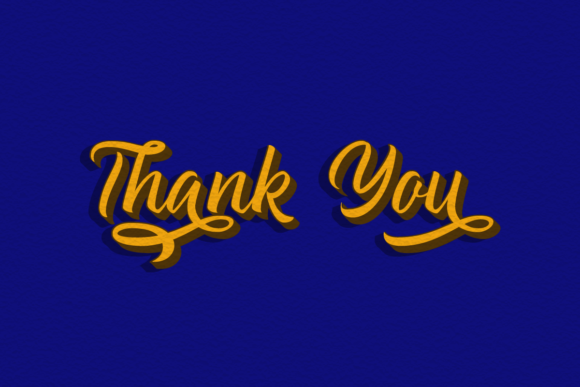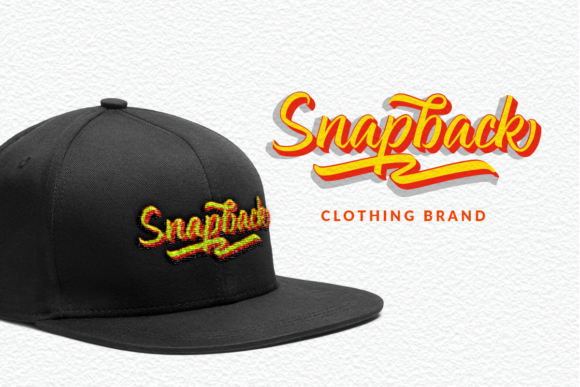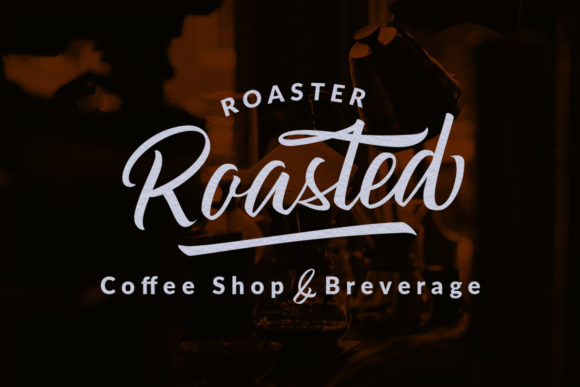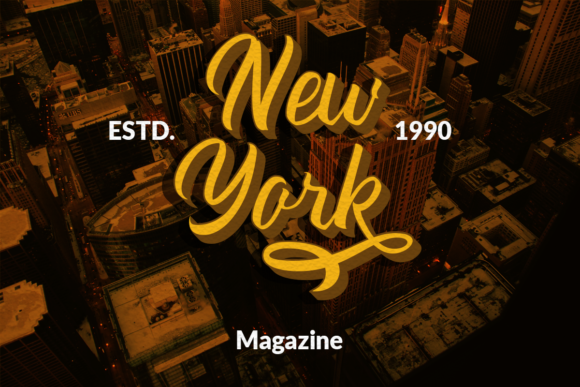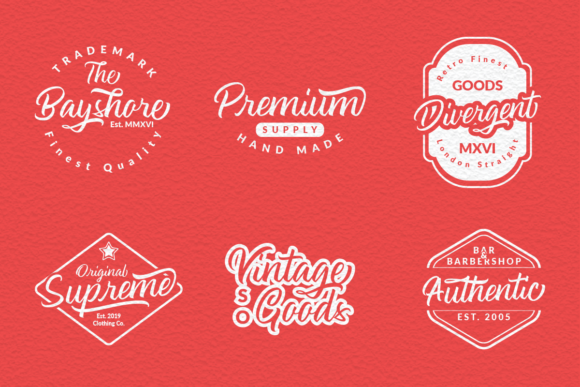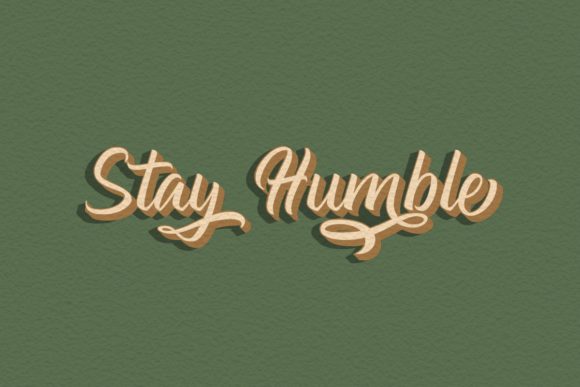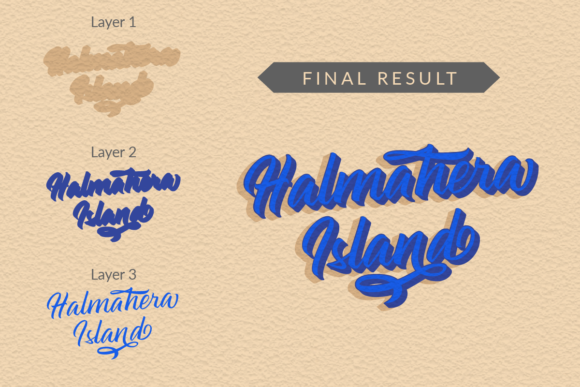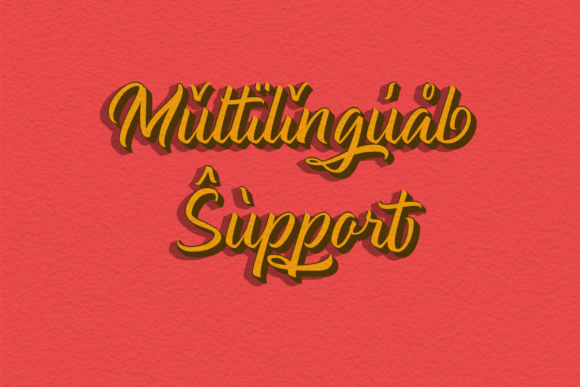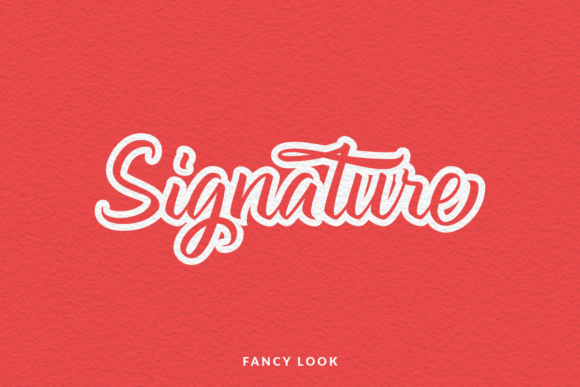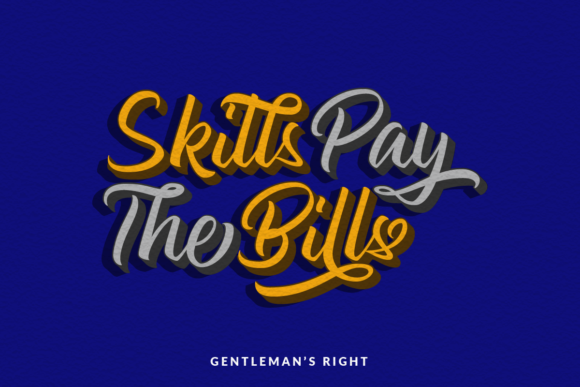
Halmahera Island Font
About Halmahera Island Font
Halmahera Island is a beautiful and unique handwritten font with a distinct vintage feel! Get inspired by this one-of-a-kind typeface!